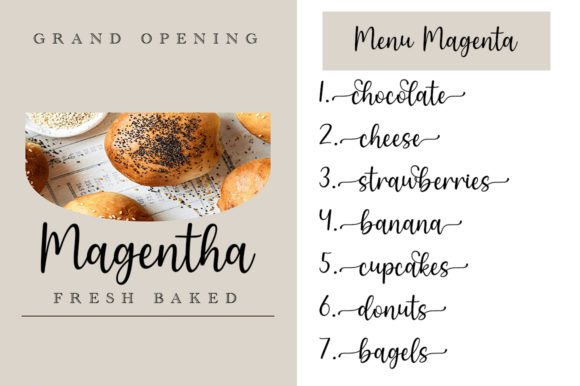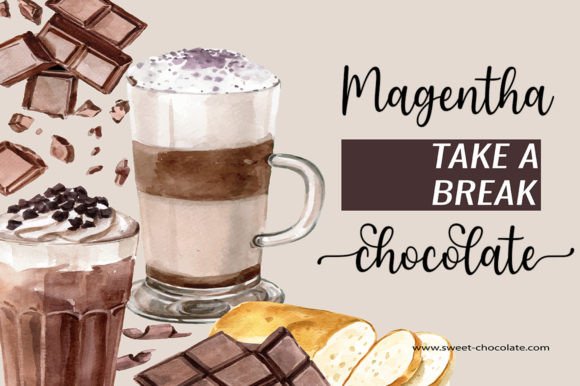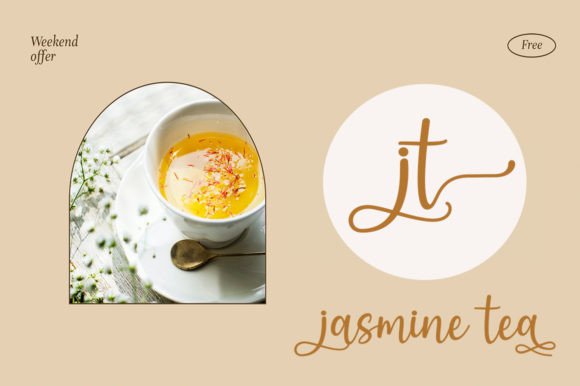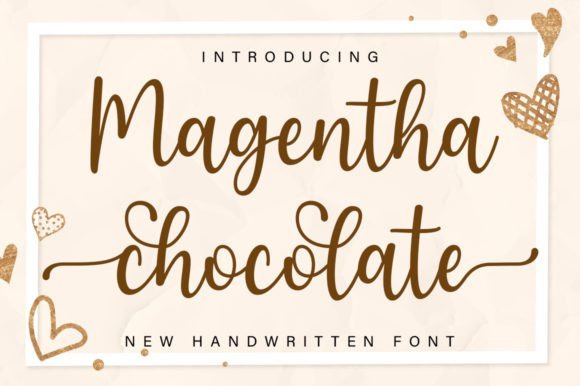
Introduction to Magentha Chocolate Font
Magentha Chocolate is a calligraphic script font that comes with beautiful alternate characters.
Copperplate calligraphy mixed with hand lettering style, designed to convey stylish elegance Magentha Chocolate is attractive because it is subtle, clean, feminine, sensual, glamorous, simple, and very easy to read.
Key Features of Magentha Chocolate Font